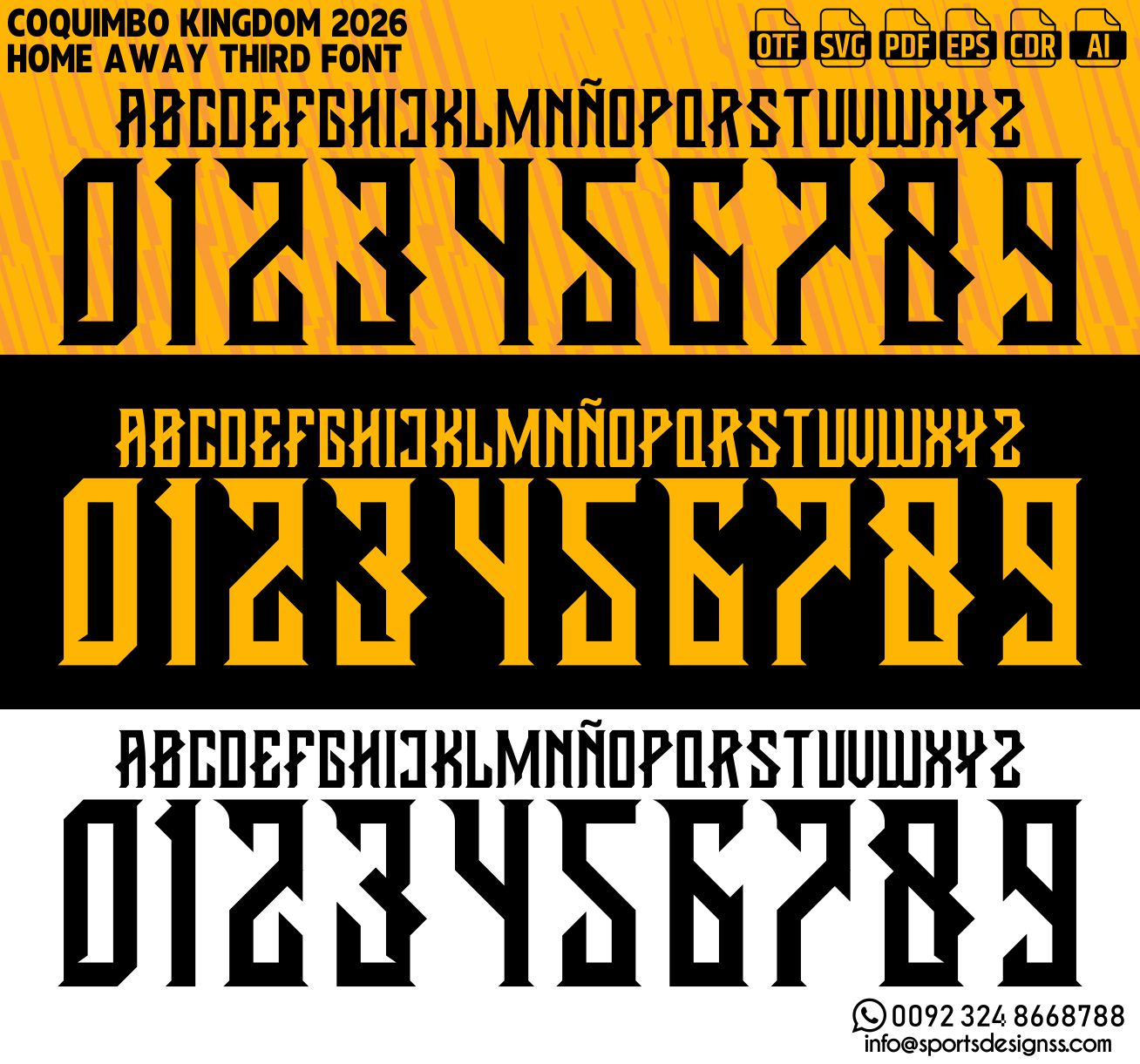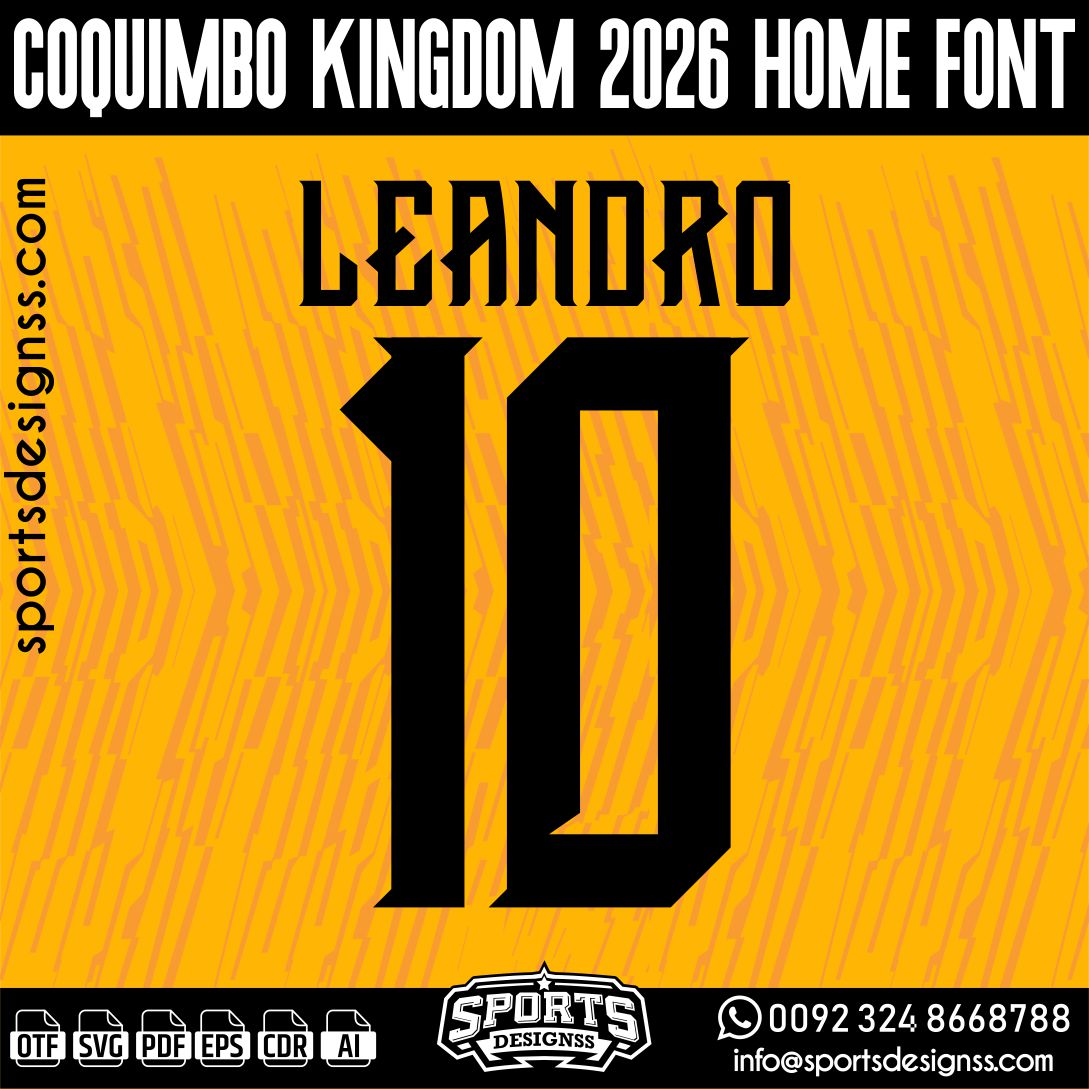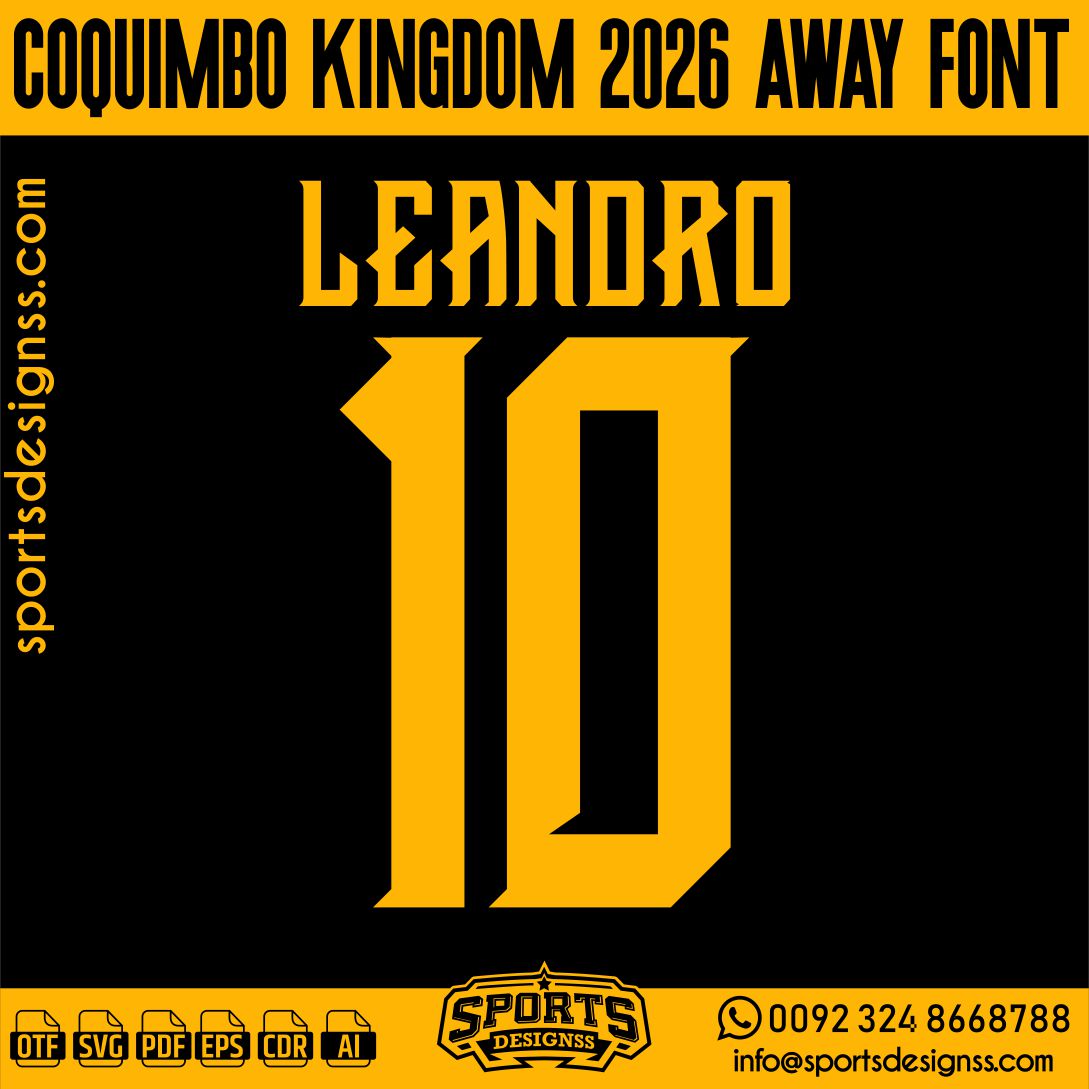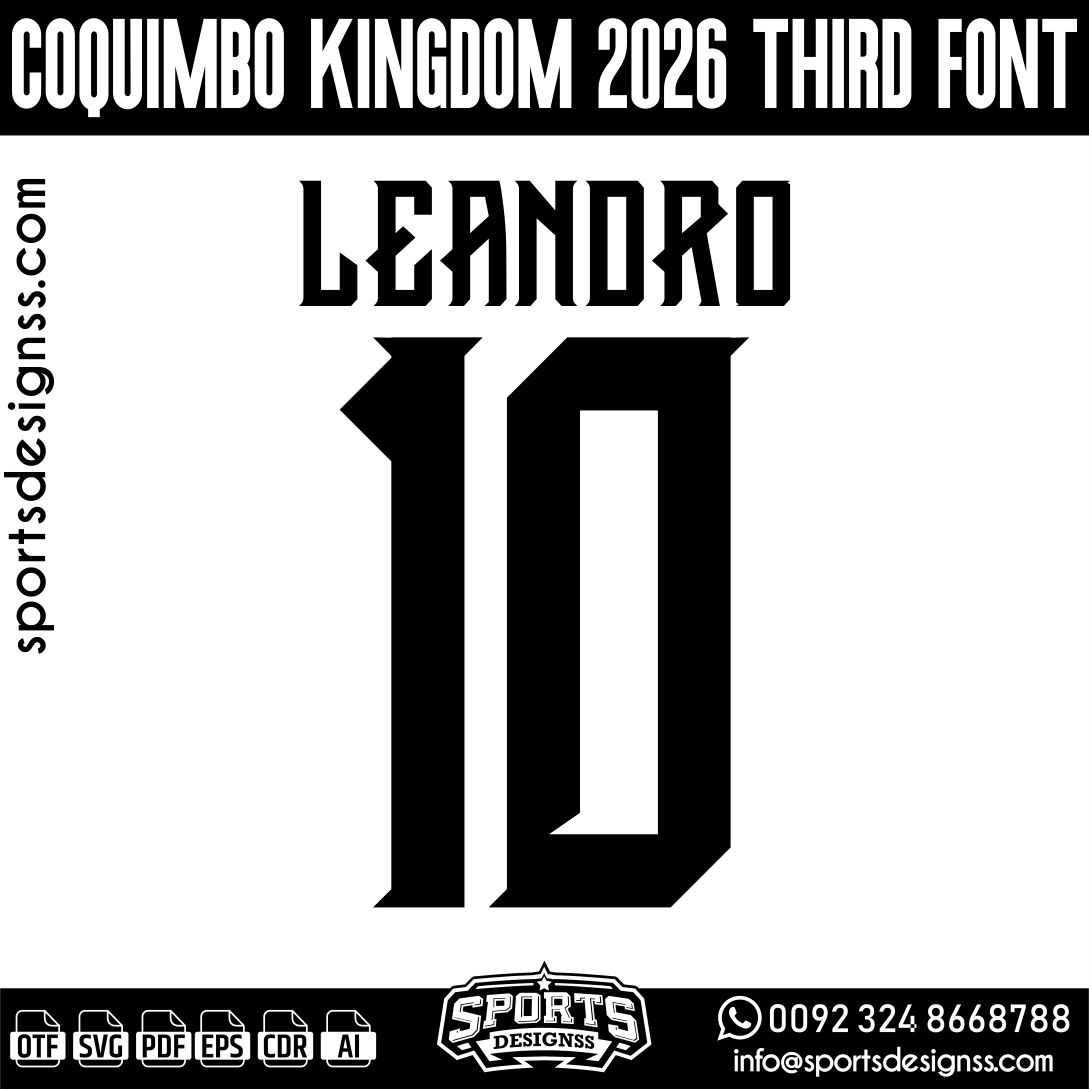
COQUIMBO KINGDOM 2026 HOME FONT by Sports Designss _Football Font Premium Football Jersey Font (OTF Download)
Recreate authentic football jersey designs with the COQUIMBO KINGDOM 2026 HOME FONT, built for realistic, match-ready sports visuals.
Upgrade your designs with the COQUIMBO KINGDOM 2026 HOME FONT, a premium football jersey font inspired by modern professional sports aesthetics.